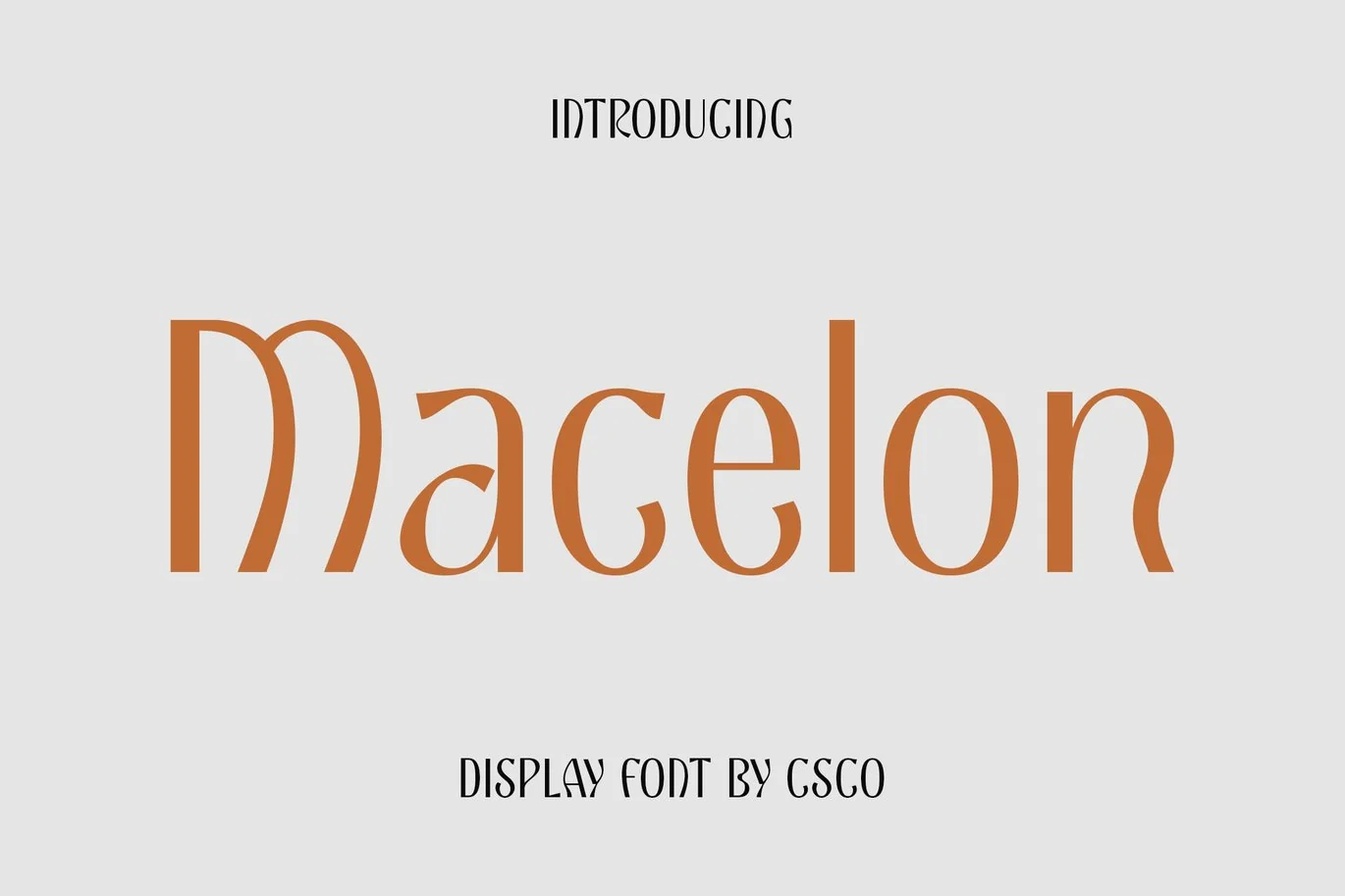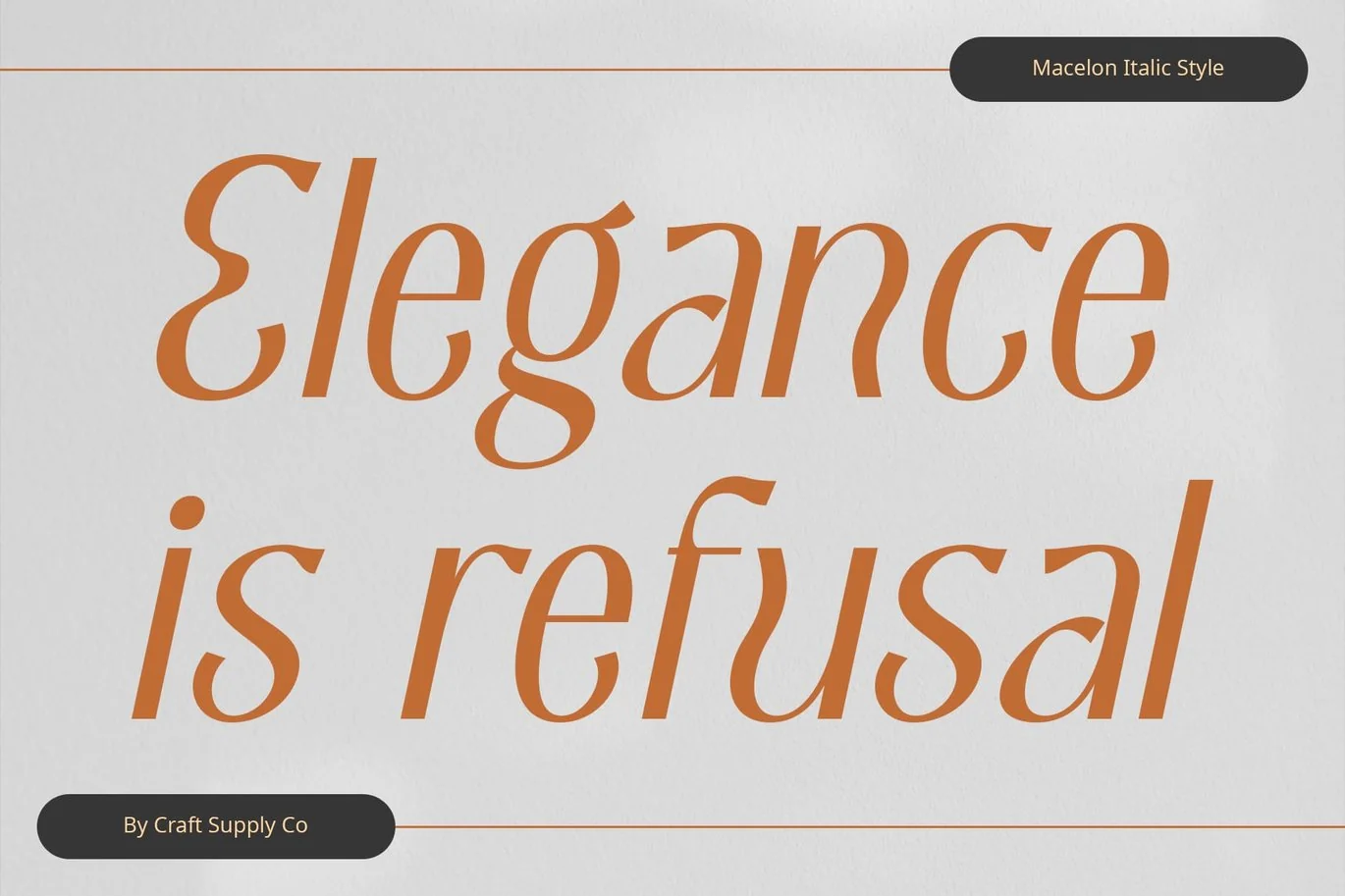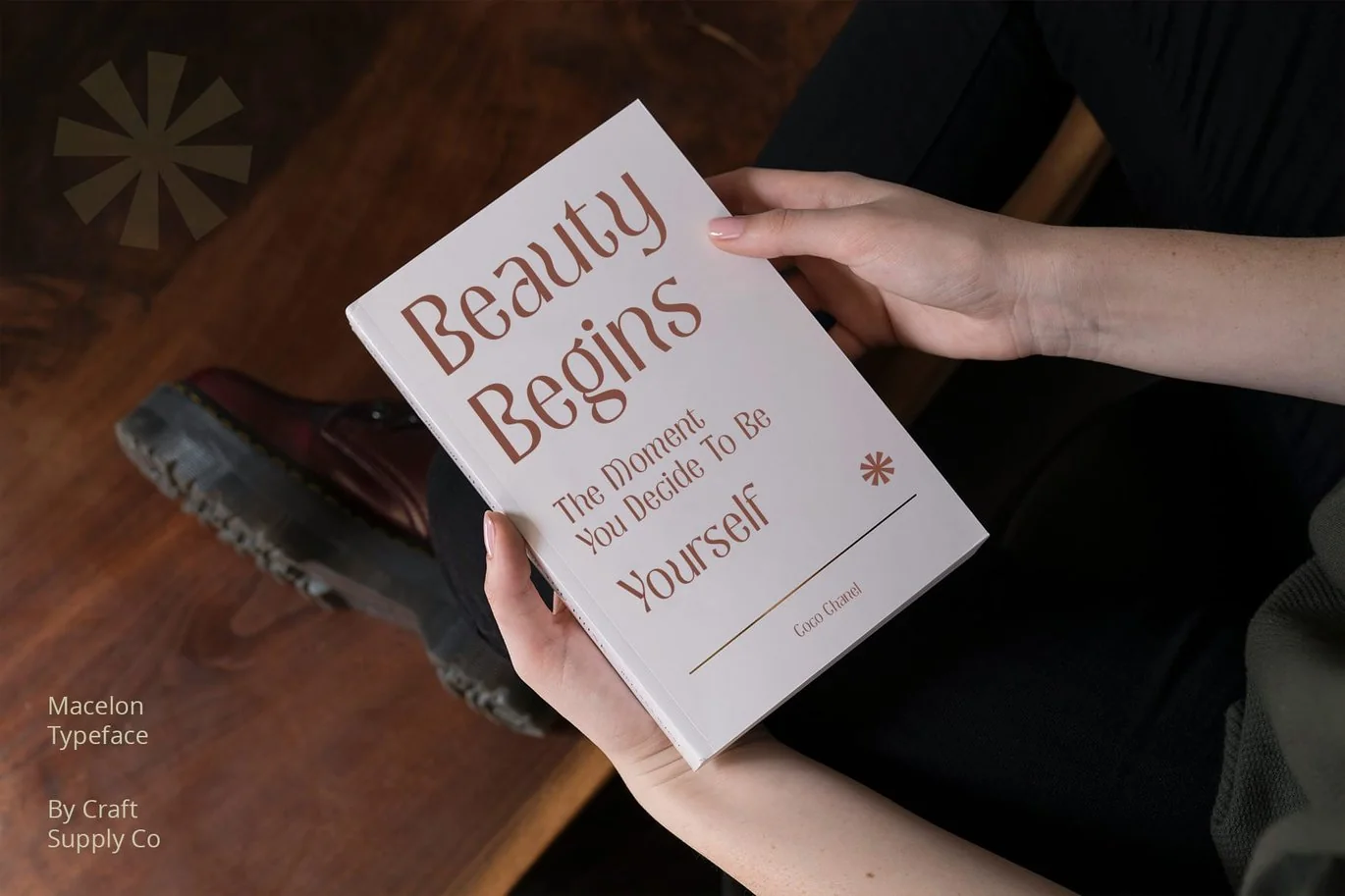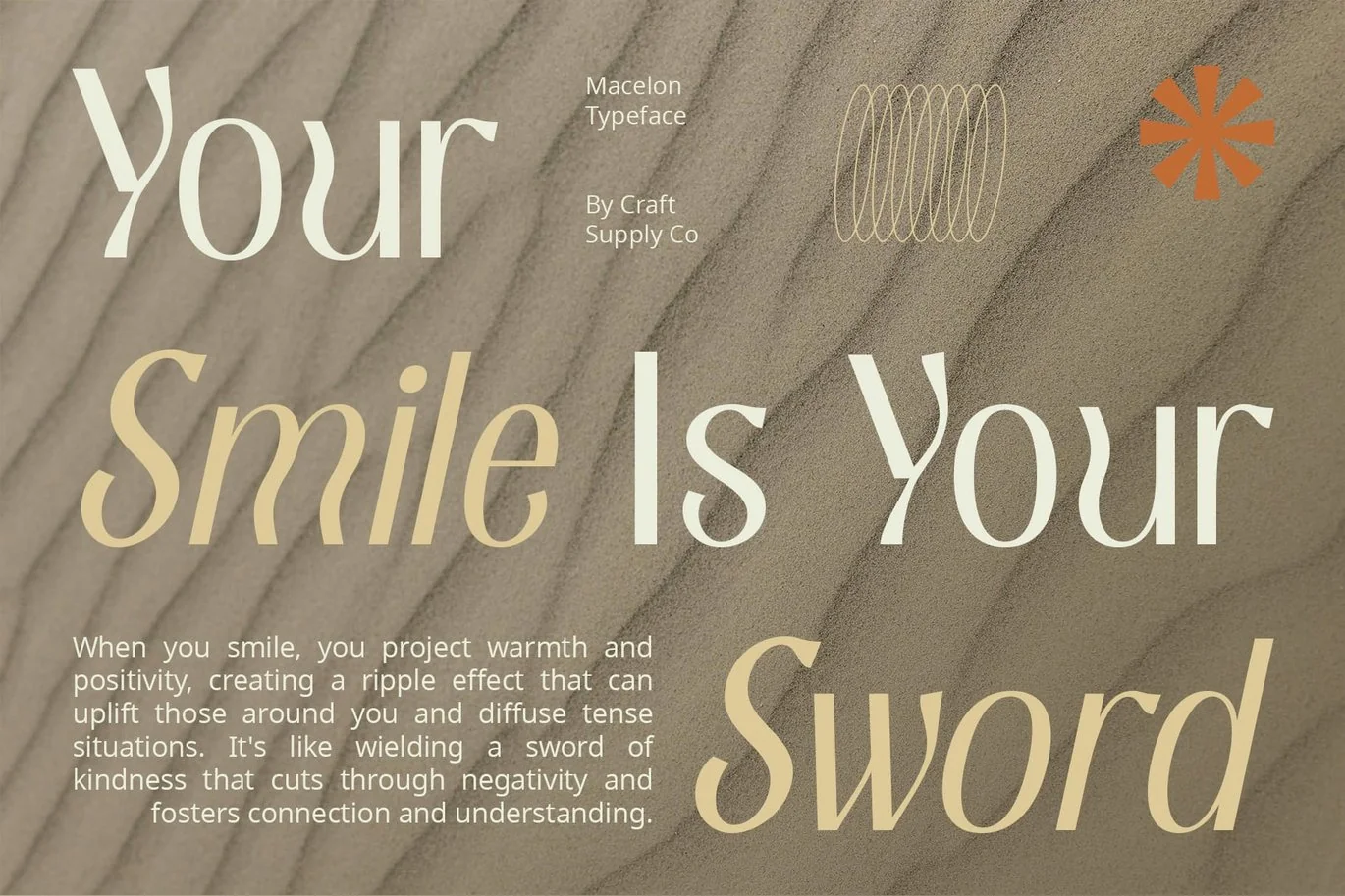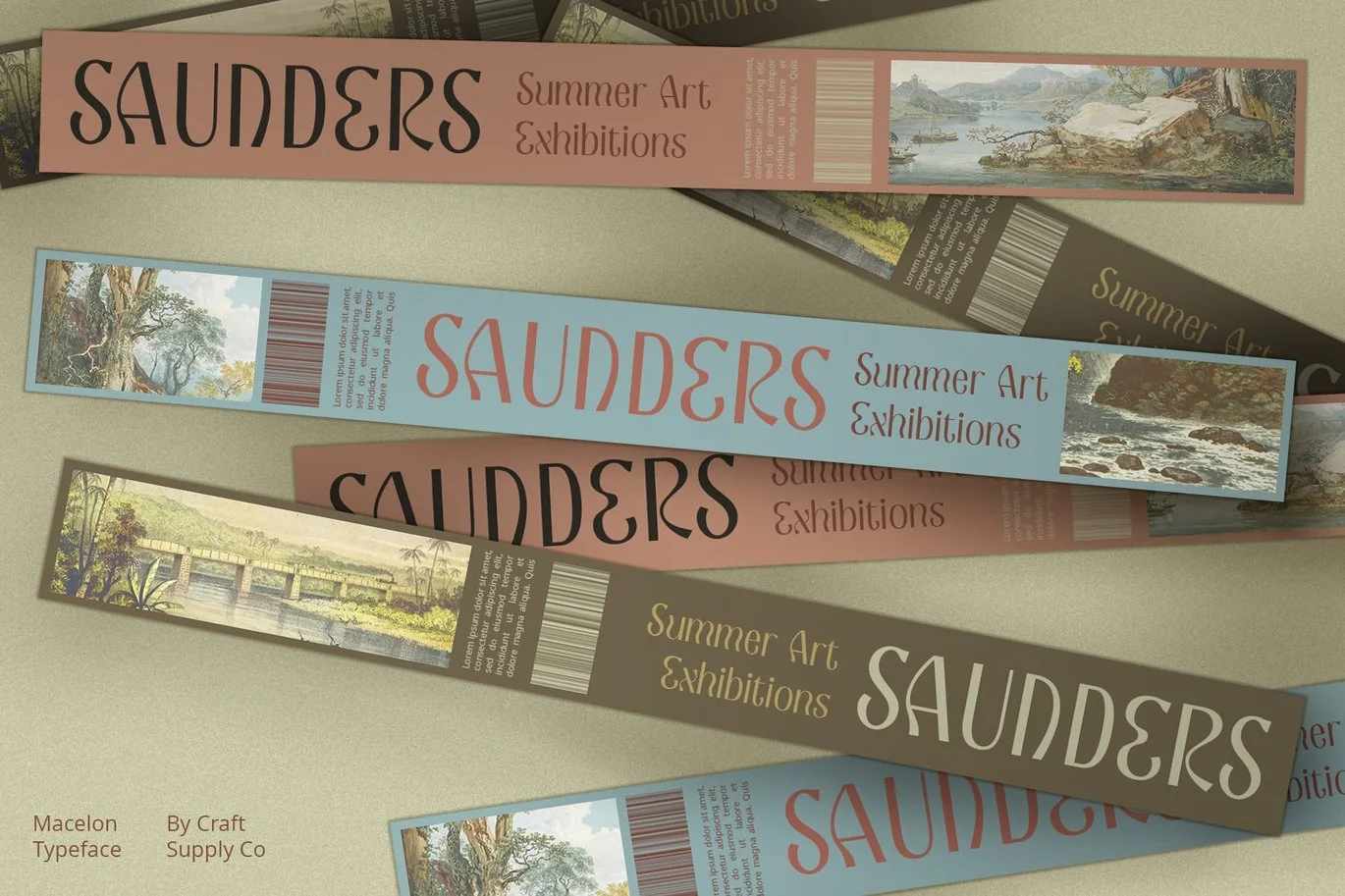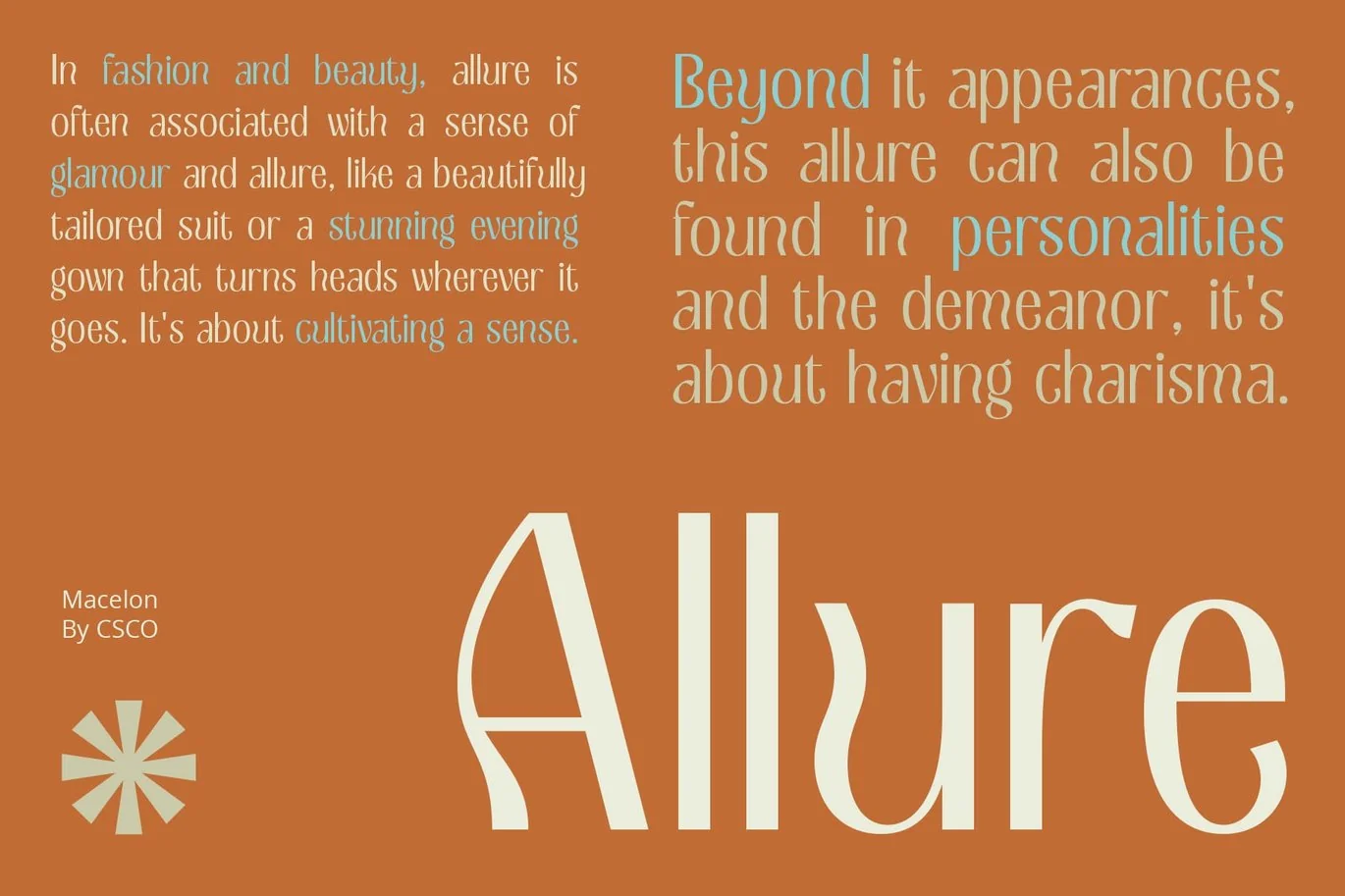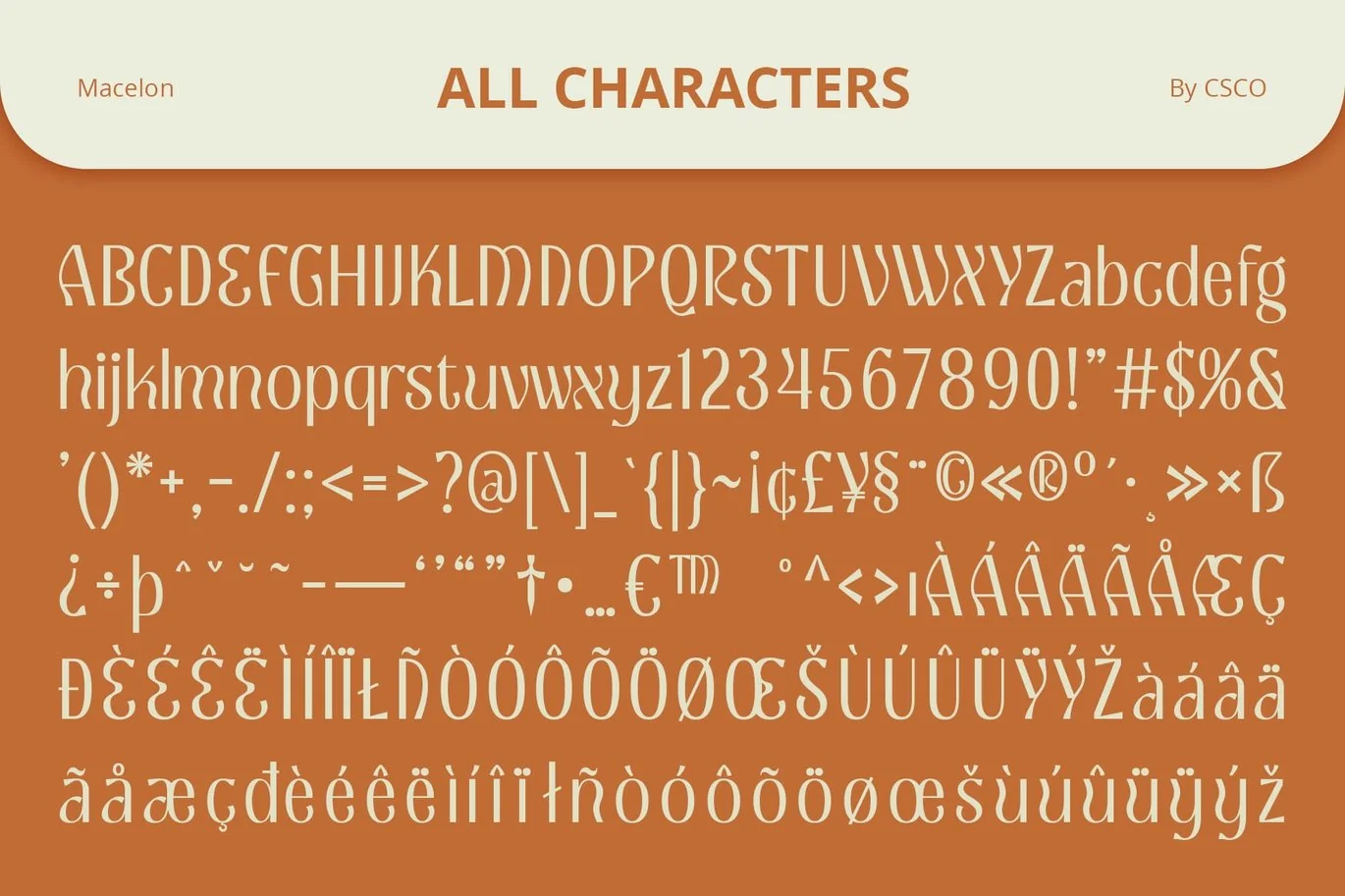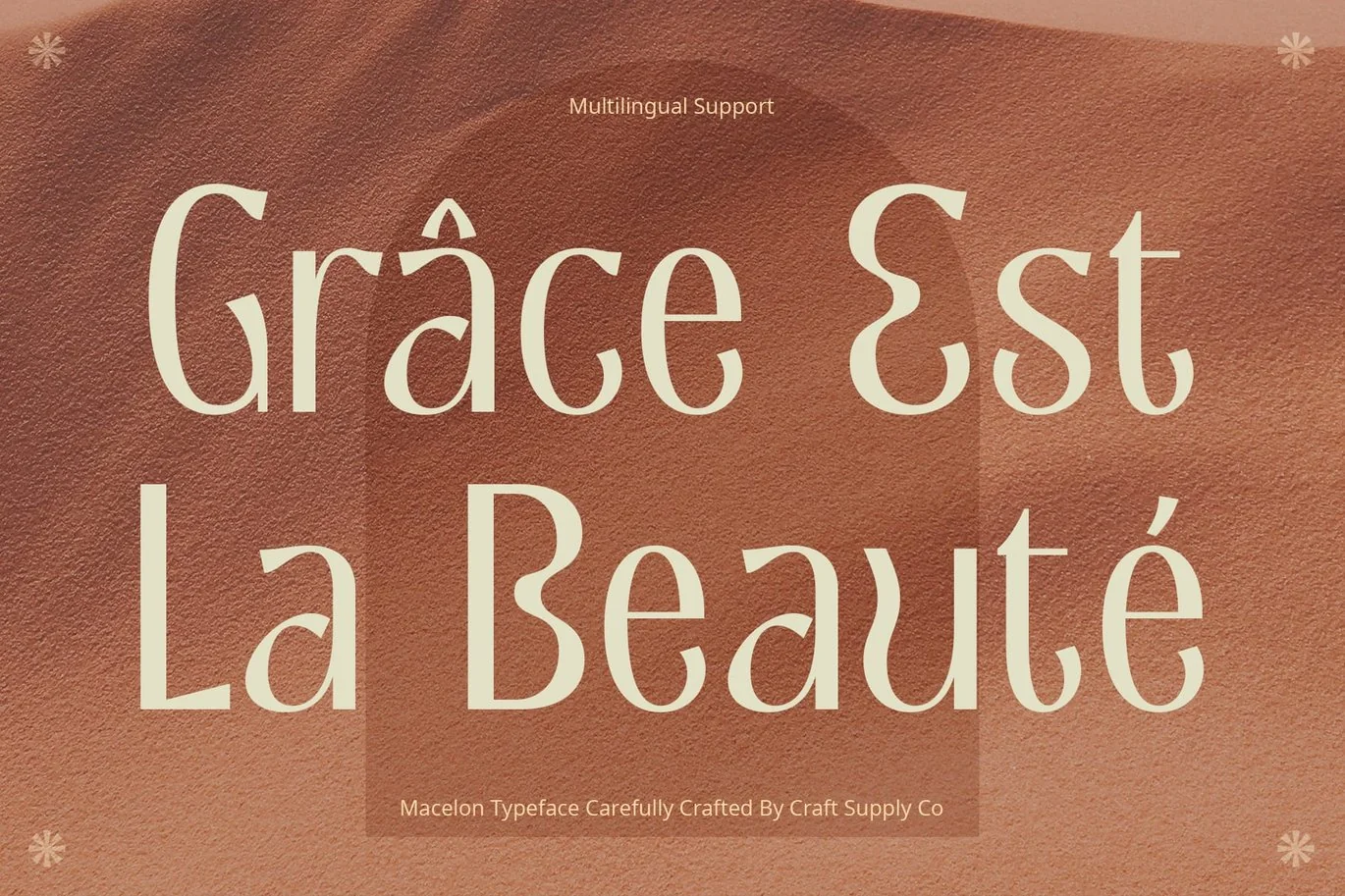
Macelon – Art Noveau Font
Macelon – Art Nouveau Font: Where Funky Vibes Meet Playfulness
Display Sans Serif with Art Nouveau Flows
Macelon – Art Nouveau Font is a display sans serif font with flows inspired by Art Nouveau. Its playful and funky vibes bring a touch of whimsy to any design project.
Funky and Playful Aesthetic
Experience the funky and playful aesthetic of Macelon Font, perfect for adding flair to your designs. Its flowing lines and whimsical shapes exude a sense of fun and creativity.
Inspired by Art Nouveau
Drawing inspiration from the Art Nouveau movement, Macelon features intricate details and flowing curves. These elements add a touch of elegance and sophistication to its playful design.
Versatile for Various Designs
Despite its artistic flair, Macelon Font is versatile enough for various design projects. Whether it’s for posters, packaging, or branding, it adds a unique and eye-catching element.
Macelon Font injects a dose of personality into any design, making it stand out from the crowd. Its playful and funky vibes create an unforgettable visual experience for viewers.
Perfect for Playful Branding
Elevate your branding with Macelon Font’s playful aesthetic. Whether it’s for a quirky startup or a vibrant product line, it adds personality and charm to your brand identity.
Macelon Font is the perfect choice for designers looking to infuse their projects with creativity and originality. Its flowing lines and playful shapes make every design project a work of art.